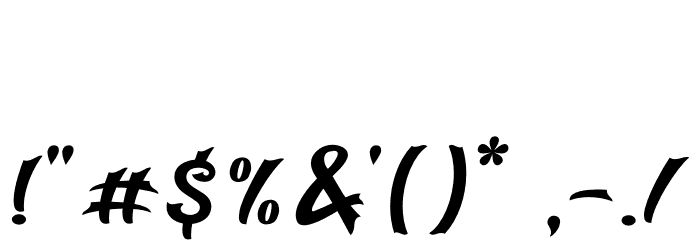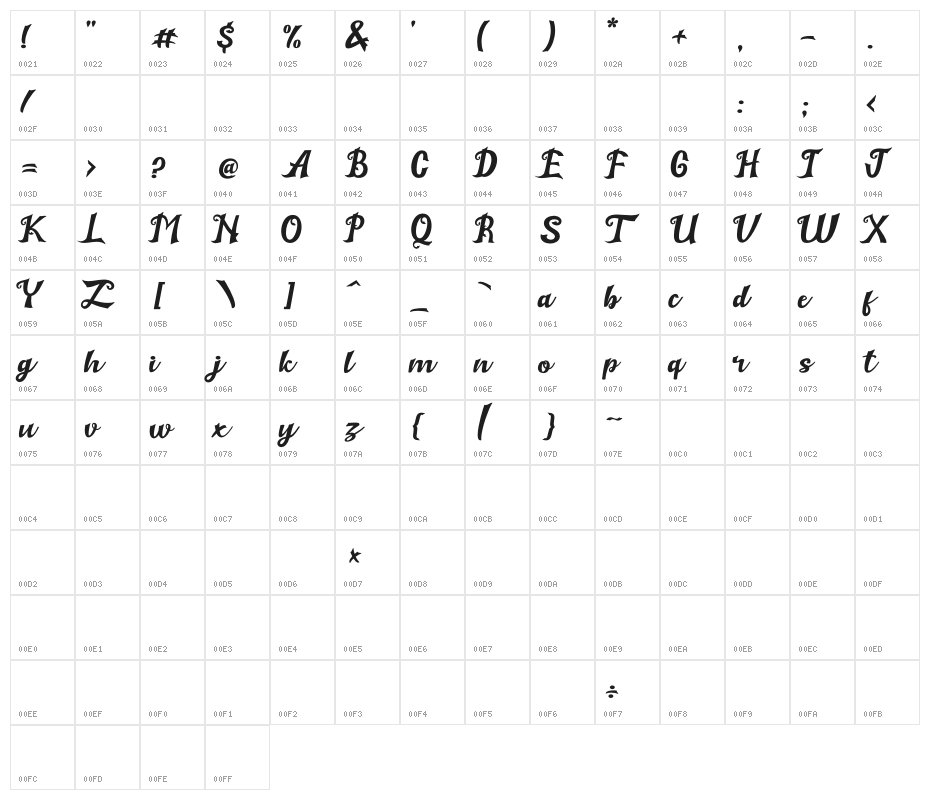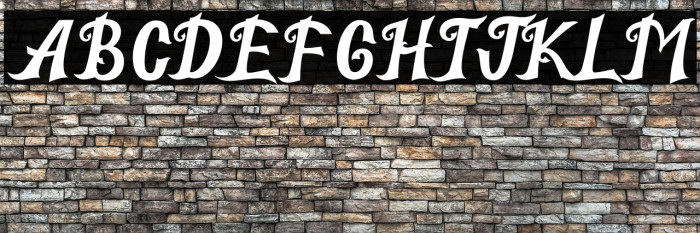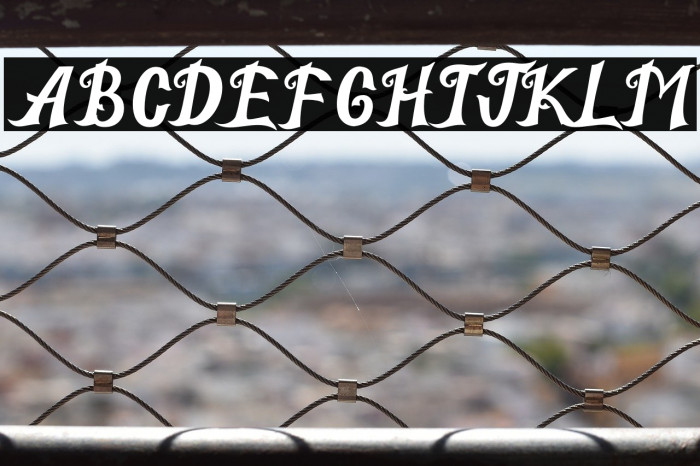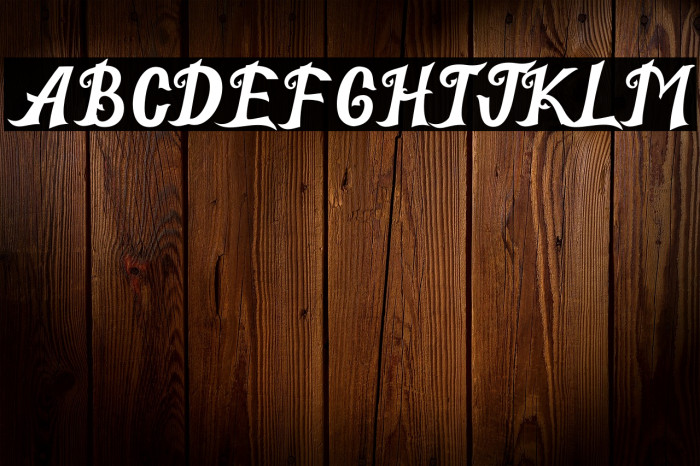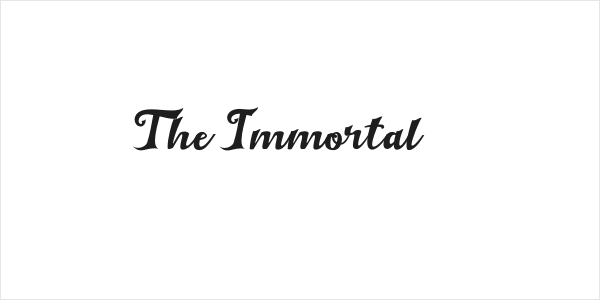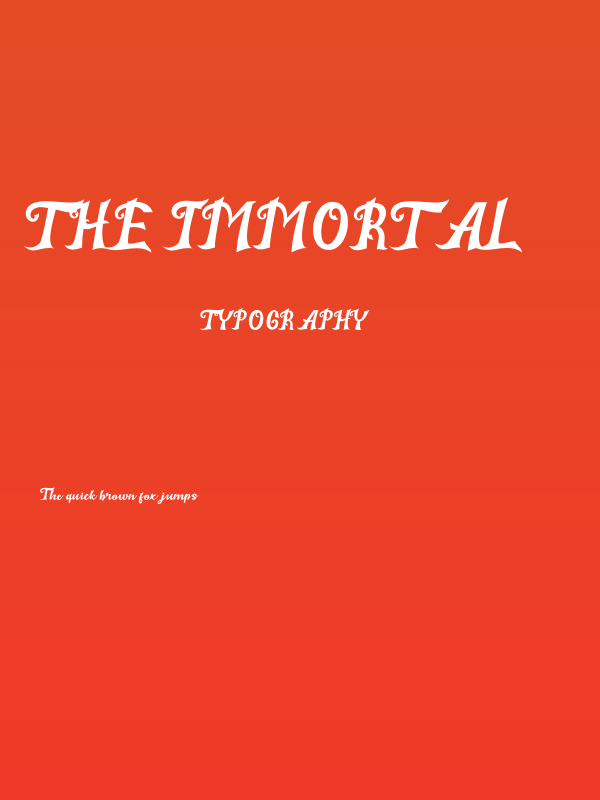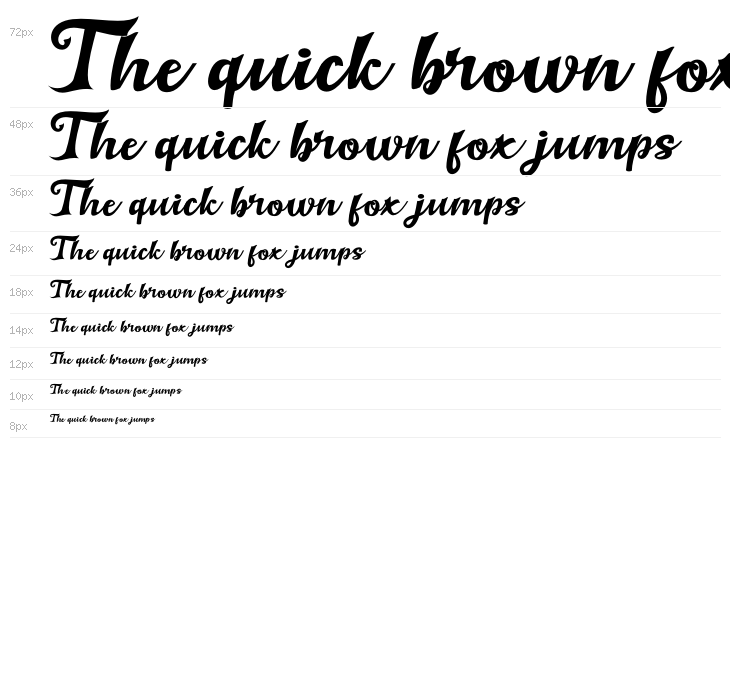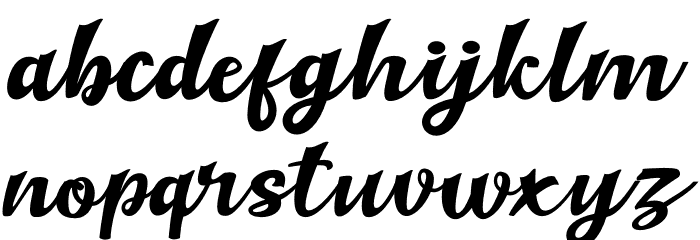
The Immortal 2 Font
The Immortal 2 Description
This font features a bold and dynamic script style with a strong presence. The uppercase letters are characterized by dramatic flourishes and sharp angles, giving them a sense of movement and elegance. The lowercase letters maintain a consistent flow, with smooth curves and a slightly slanted orientation, enhancing the script's fluidity. The numerals and special characters are designed to match the overall aesthetic, with bold strokes and decorative elements. This font's high contrast in stroke thickness adds to its striking appearance, making it ideal for impactful designs.
| Proposed Projects | Ideal for branding, logos, invitations, and headlines that require a bold and elegant script style. |